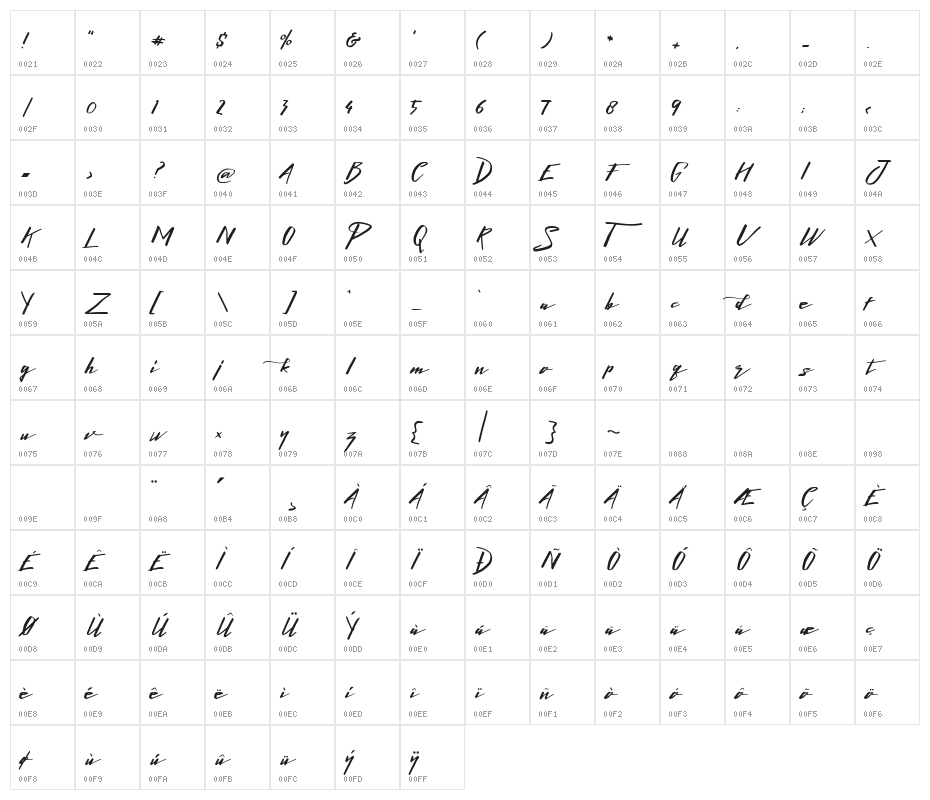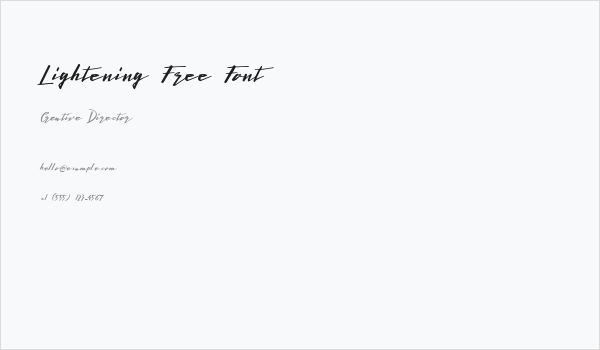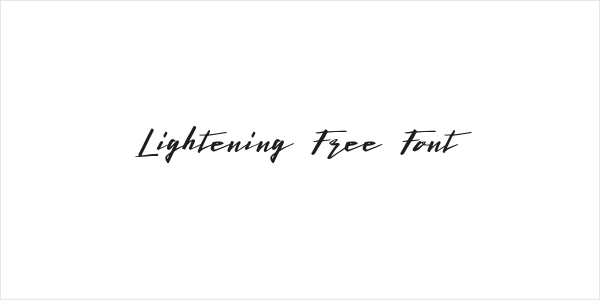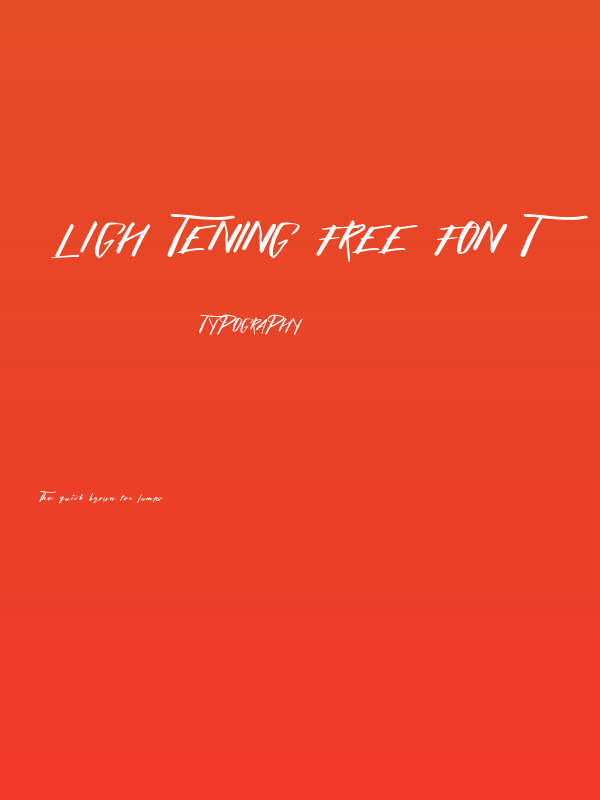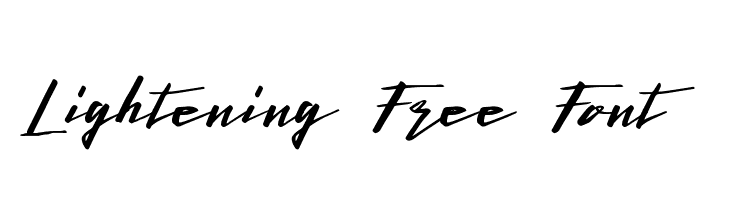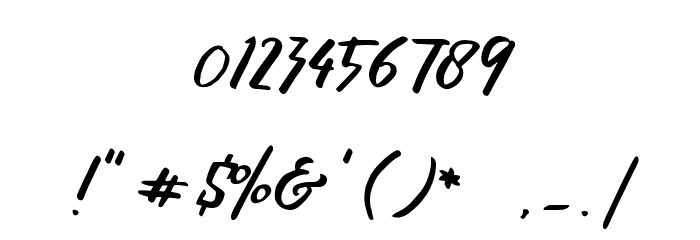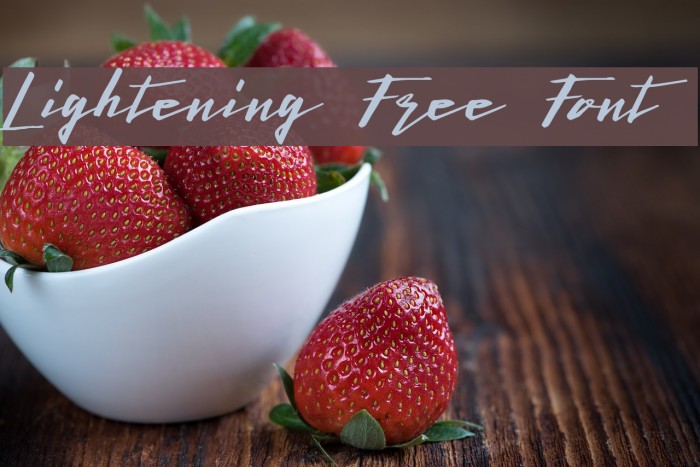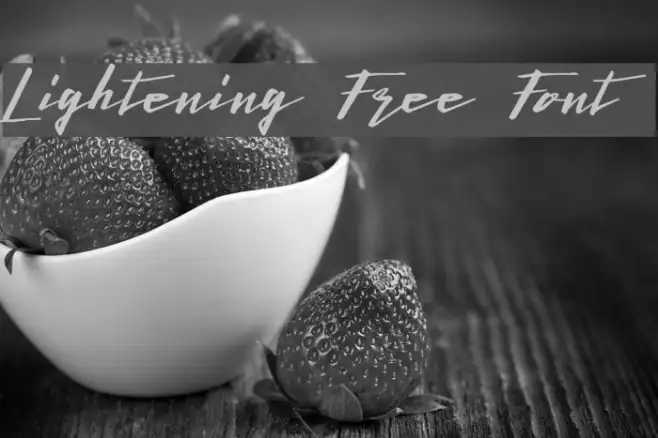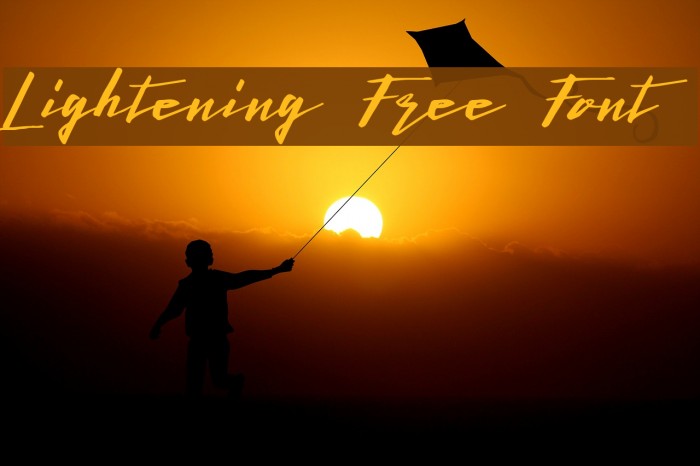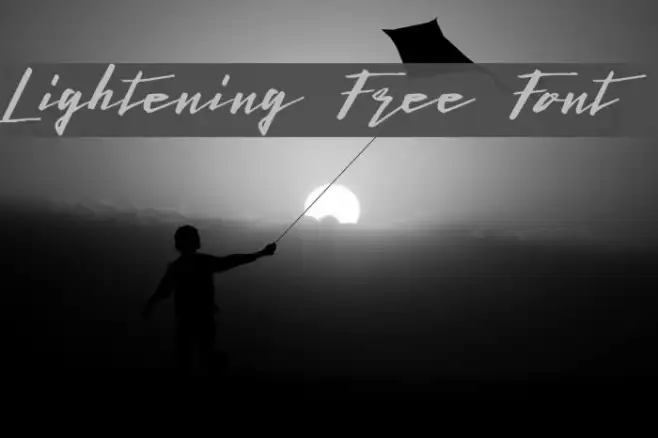
Lightening Free Font Font
Lightening Free Font Description
This font exhibits a dynamic and energetic style, characterized by its bold and expressive brush strokes. The uppercase letters are angular and sharp, conveying a sense of movement and urgency. The lowercase letters maintain a fluid and cursive quality, adding a touch of elegance and sophistication. The numerals are consistent with the overall style, featuring the same bold and sweeping strokes. Special characters are creatively designed, complementing the font's lively aesthetic. This font is ideal for projects that require a sense of excitement and creativity, such as branding, advertising, and artistic designs.
| Proposed Projects | Ideal for branding, advertising, artistic designs, and creative projects. |